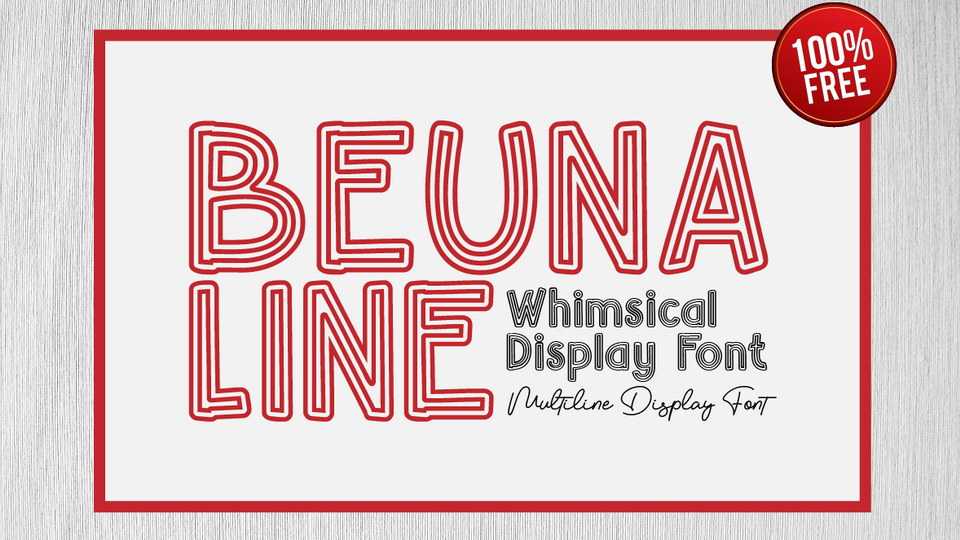
Download Beuna LIne font, a multiline whimsical display typeface with unique typeface sporty, modern, adventurous edge. Made for giving titles an extra punch, Beuna Line packs a full set of capitals, numbers and punctuation.